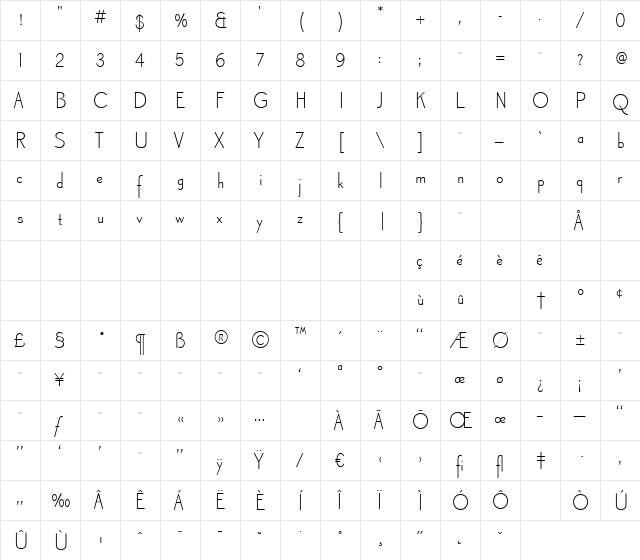
Canterbury Sans RR Light
| Foundry | Rabbit Reproductions Typefoundry |
| Designer | Steve Jackaman |
Design Context for Canterbury Sans RR Typeface
Canterbury Sans RR takes a measured approach to typography — its balanced proportions and neutral character make it a reliable workhorse for both digital and print work. The delicate stroke weight brings airiness and refinement to layouts.